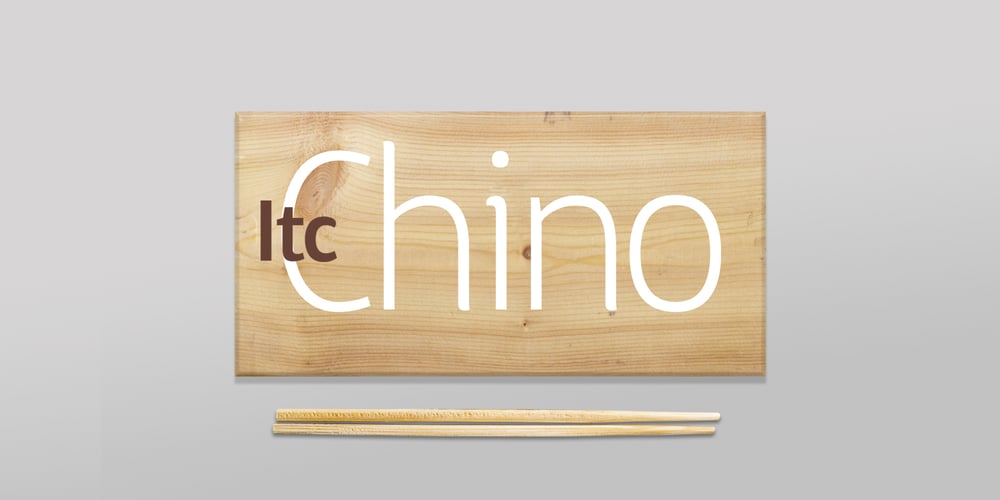
ITC Chino Font Family was designed by Hannes von Döhren and published by ITC. ITC Chino contains 12 styles and family package options. ITC Chino is a type family (Display & Text) designed by Hannes von Döhren and Livius Dietzel. ITC Chino Pro brings legibility and distinction to text copy. It is also a friendly design that will invite readers into content at large or small sizes. It is a melding of soft brush stokes and crisp edges. This is readily apparent in the bolder italic weights where the straight stems provide a counterpoint to the cursive terminals. The Typefamily is highly legible in a wide range of sizes. The text side of the family contains five weights of roman, each with an italic companion. Ranging from Light to Black, ITC Chino Pro provides a rich typographic palette. The OpenType fonts have an extended character set to support Central and Eastern European as well as Western European languages. Each font includes small caps, fractions, old style-, lining-, tabular numbers, scientific superior/inferior figures and a set of arrows.